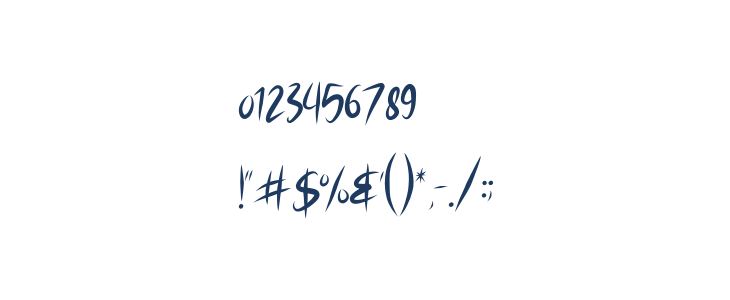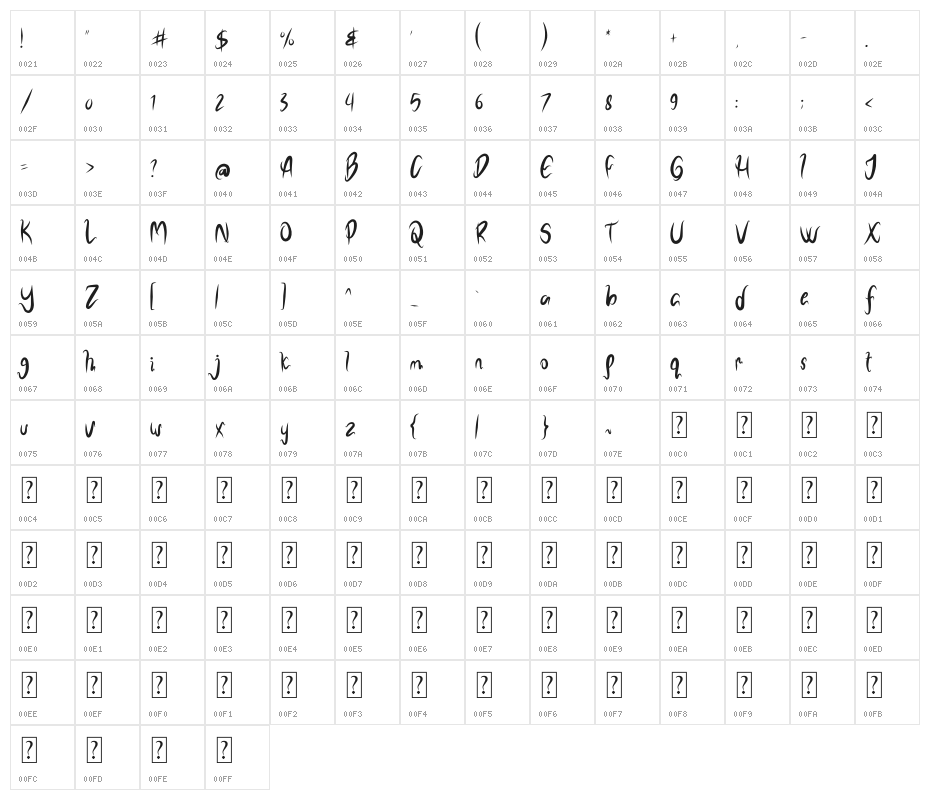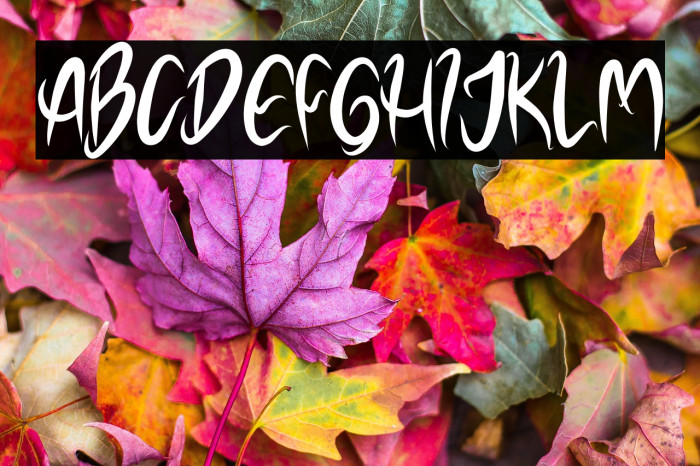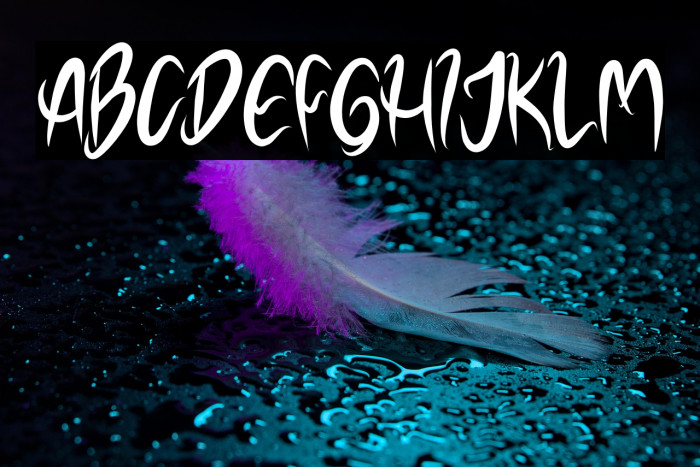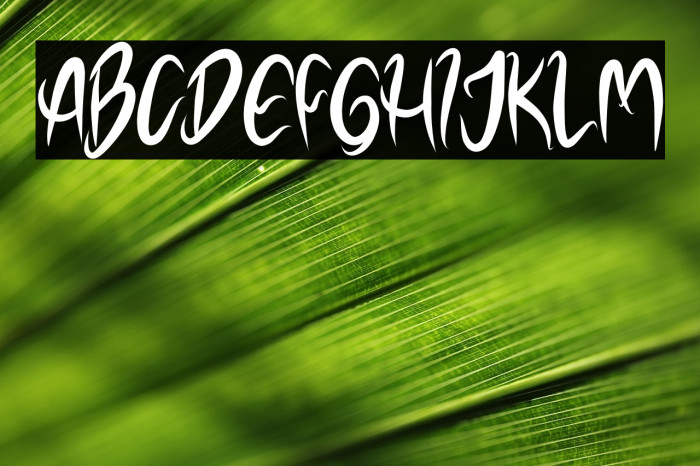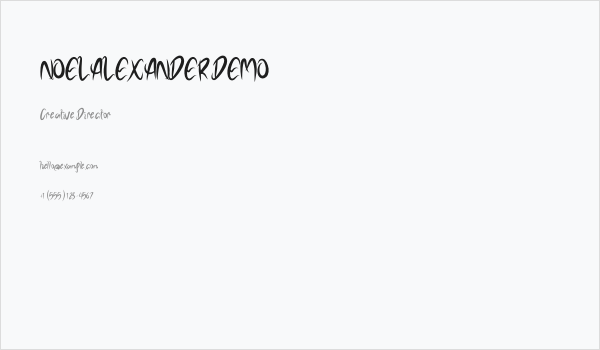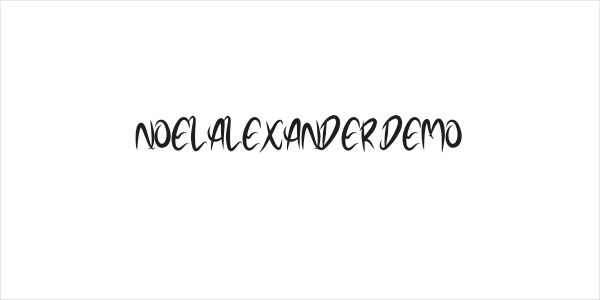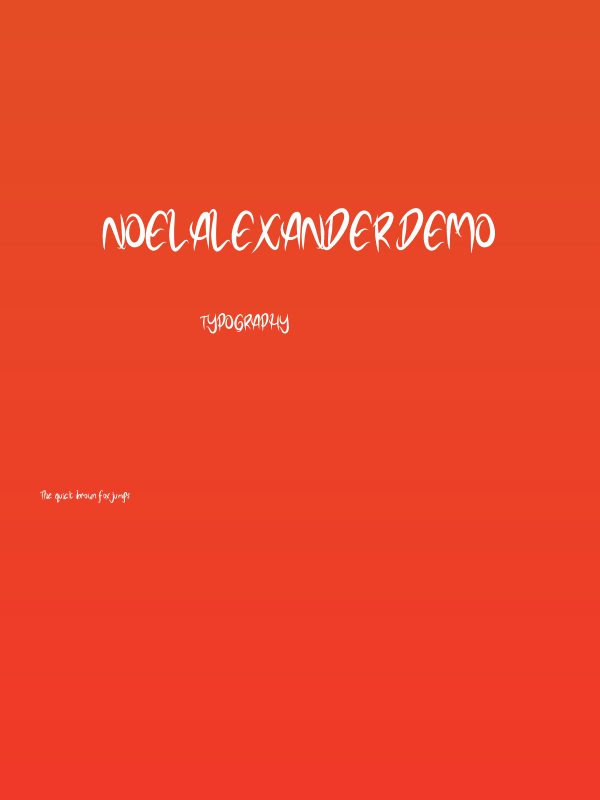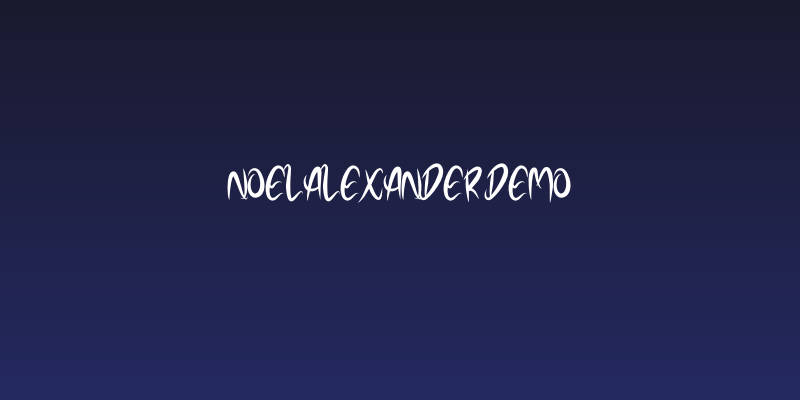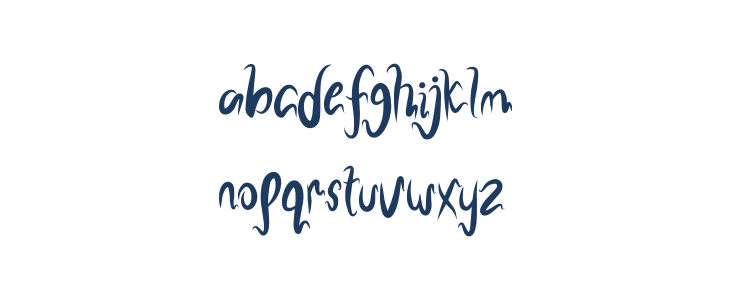
NOELALEXANDER DEMO Font
NOELALEXANDER DEMO Description
This font features a dynamic and expressive style, characterized by its flowing, cursive-like strokes and varying line thickness. The uppercase letters exhibit a bold and dramatic flair, with elongated and curved lines that create a sense of movement and energy. The lowercase letters maintain a similar fluidity, with playful loops and swirls that add a whimsical touch. The numbers are consistent with the overall style, offering a unique and artistic appearance. Special characters are designed with the same attention to detail, ensuring a cohesive look throughout. This font is ideal for projects that require a touch of creativity and individuality.
Use CaseLogos, Headlines, Artistic designs
Proposed ProjectsIdeal for creative projects such as invitations, posters, branding, and artistic designs.